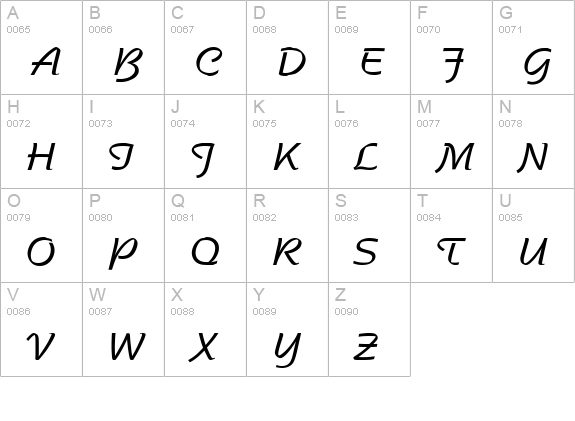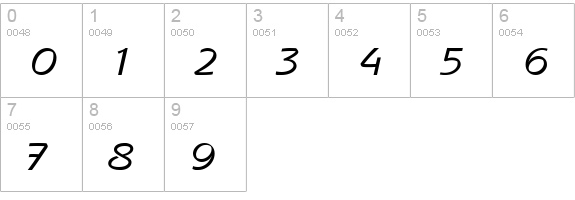
Sentimental Script SSi Font Details
Sentimental Script SSi is a beautifully crafted font that exudes an air of nostalgia and sentimentality. Its delicate cursive strokes and elegant curves make it perfect for adding a touch of romance and emotion to any project. This font captures the essence of handwritten letters, evoking the warmth and personal connection that comes with penning heartfelt messages. Whether you're designing wedding invitations, love notes, or sentimental quotes, Sentimental Script SSi will bring a touch of elegance and grace to your creations. What sets Sentimental Script SSi apart is not just its stunning design, but also the fact that it is available for free. Yes, you read that right – this remarkable font can be downloaded at no cost from FontsMarket.com. It offers the opportunity to enhance your designs without breaking the bank, making it an invaluable resource for designers and creatives alike. With Sentimental Script SSi, you have the freedom to express your emotions and capture the essence of sentimentality in your designs. Whether you're working on personal projects or professional campaigns, this font will add a touch of elegance and nostalgia that is sure to leave a lasting impression. So why wait? Download Sentimental Script SSi now from FontsMarket.com and let your creativity soar. With its timeless appeal and free availability, this font is a must-have for anyone seeking to infuse their designs with heartfelt sentiment.